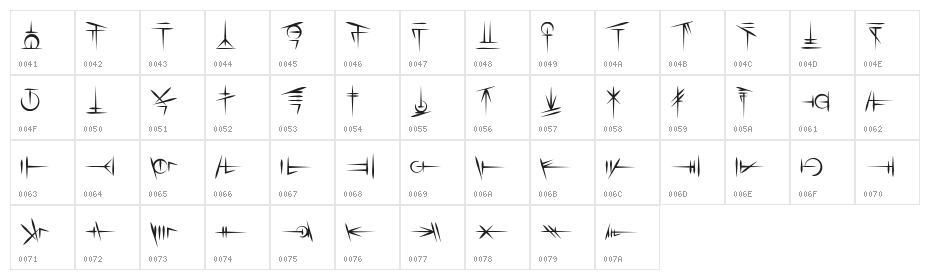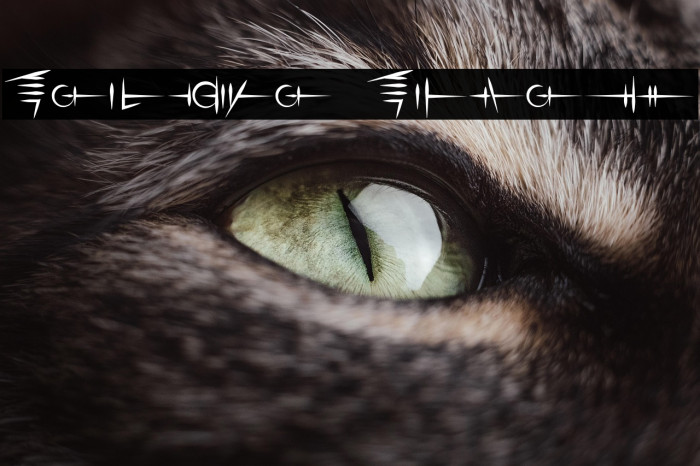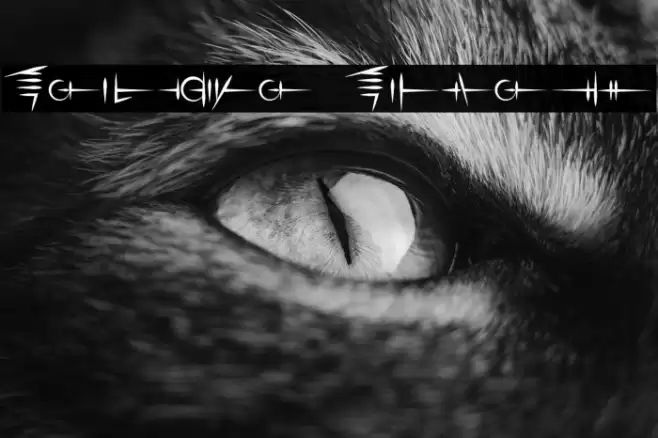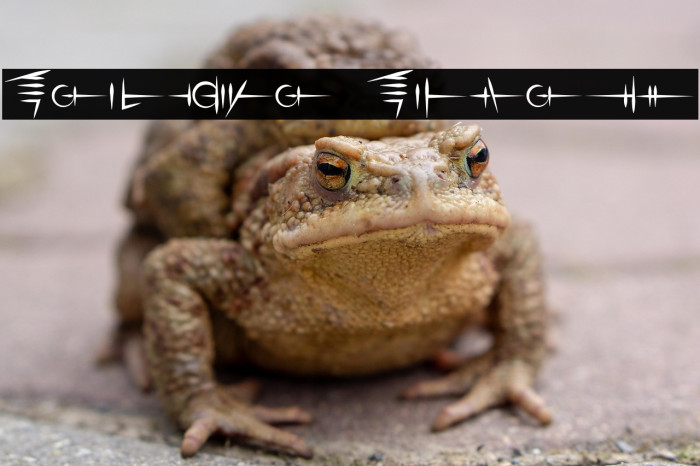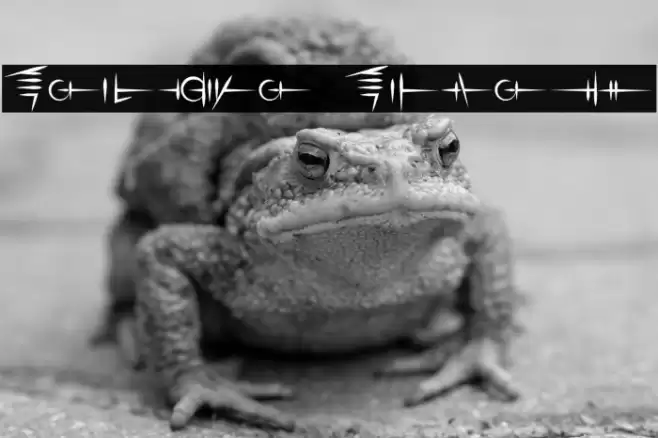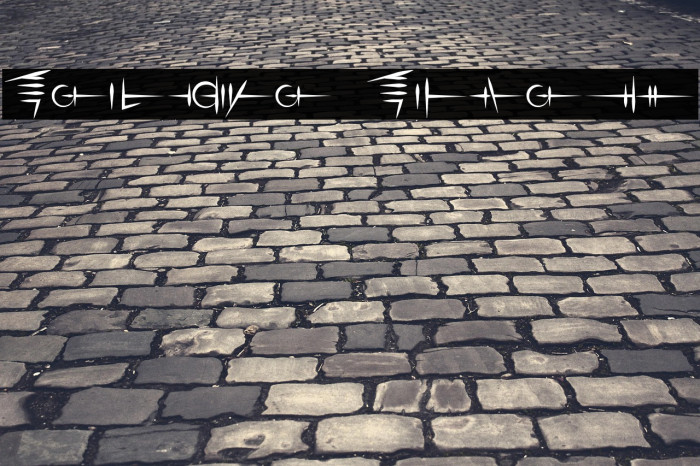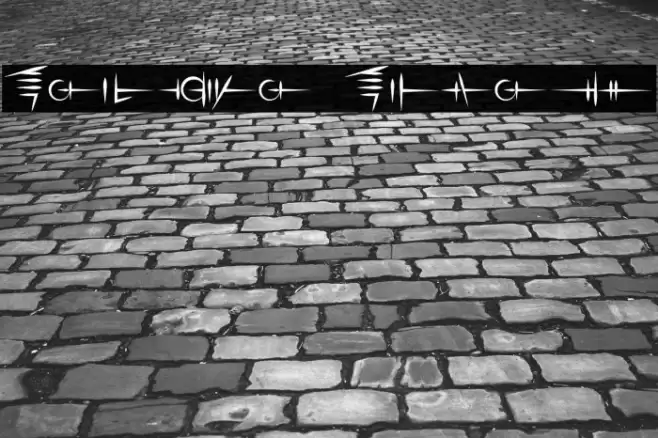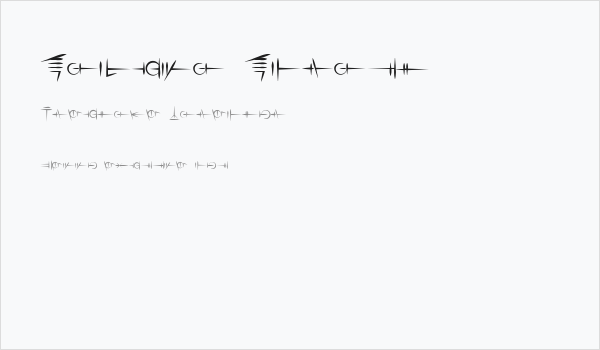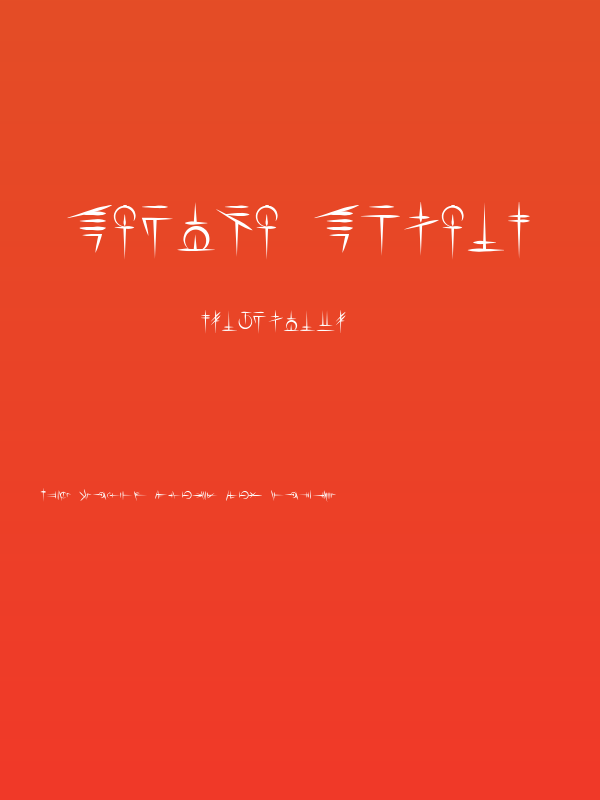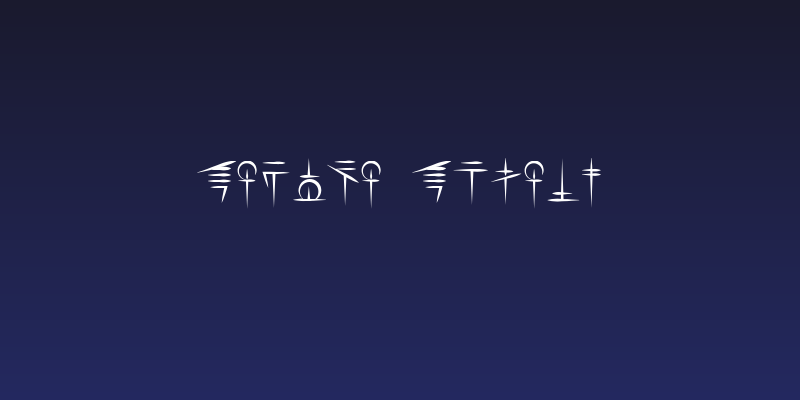
Sigali Script Font
Sigali Script Description
This font features a highly stylized and abstract design, characterized by sharp, angular lines and geometric shapes. Each character is crafted with a unique combination of spikes and curves, creating a futuristic and edgy appearance. The strokes vary in thickness, adding a dynamic and aggressive feel to the overall design. The font's distinct style makes it stand out, with each letterform appearing almost like a piece of art. The characters are evenly spaced, maintaining a consistent rhythm across the text. This font is ideal for projects that require a bold and unconventional aesthetic.
| Overall Style | Futuristic, Edgy |
| Use Case | Logos, Posters, Titles |
| Proposed Projects | Ideal for sci-fi themed designs, video game graphics, album covers, and modern art posters. |